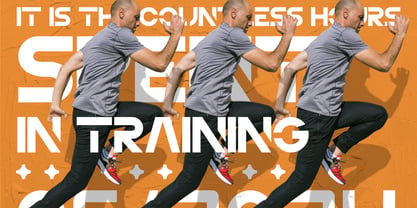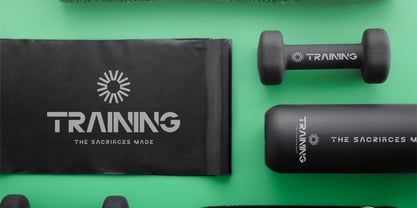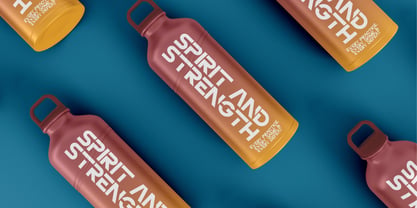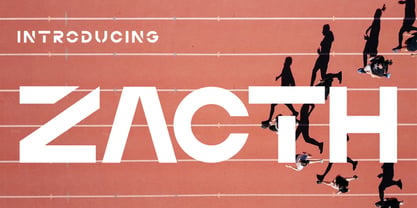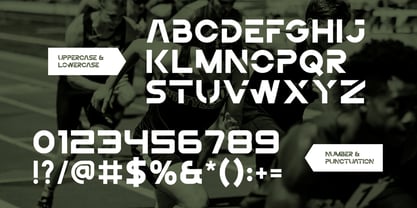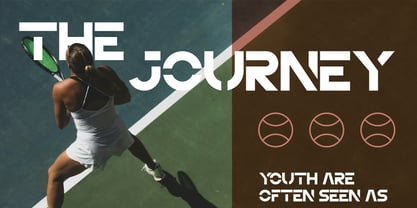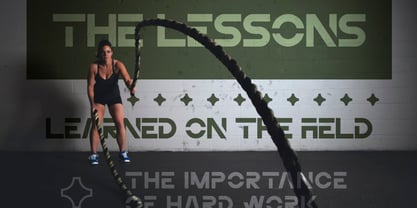
Zacth
La familia tipográfica Zacth fue diseñada por y publicada por Catalystco Std. Zacth contiene 1 estilos. Más información sobre esta familia
Zacth is a powerful and modern bold sans serif display font crafted for high-impact visuals. With sharp angular cuts and futuristic curves, this typeface demands attention while maintaining excellent readability. It includes uppercase characters, numerals, punctuation, and a distinctive geometric design language, making it ideal for sports branding. Zacth is an ideal choice for industries and projects that require a bold visual statement—especially in sports, gaming, and tech. Whether you're designing a competitive sports poster, esports branding, futuristic movie title, or bold tech packaging.